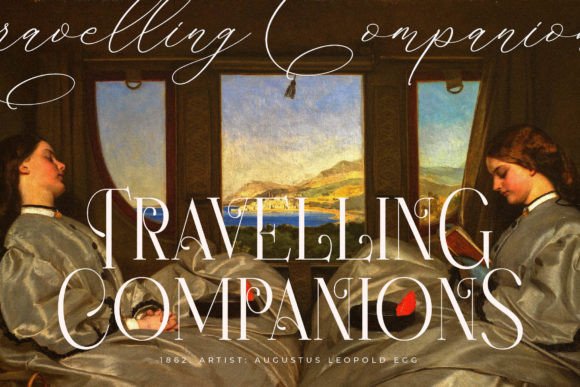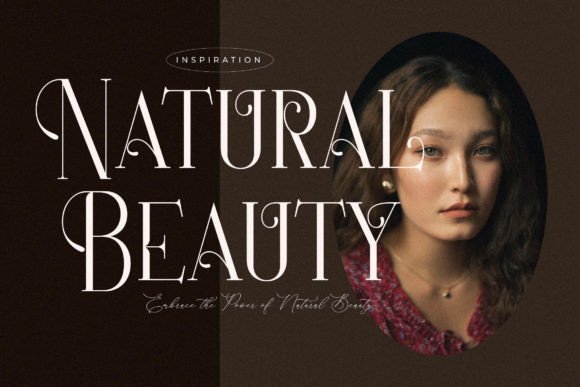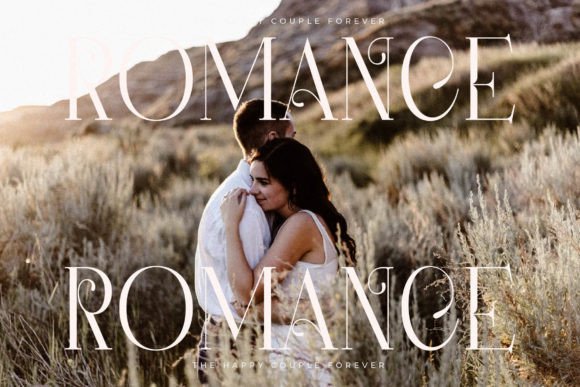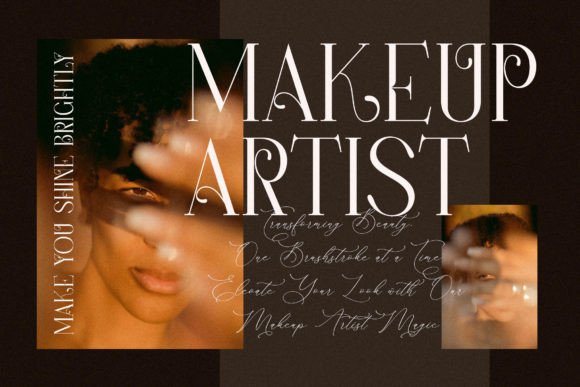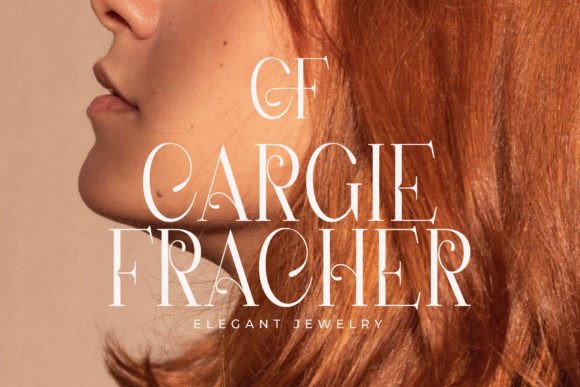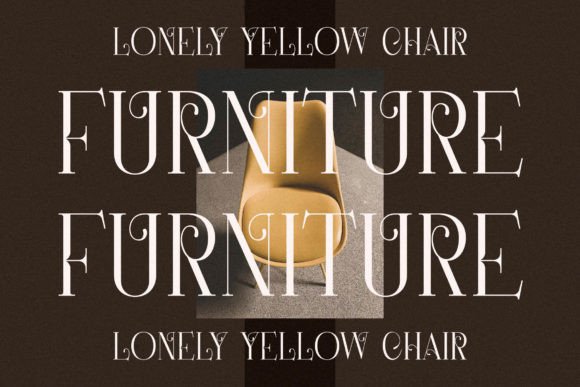
Hanchern Font: Elevate Your Designs with Elegance and Sophistication
In the world of typography, a font can make or break a design. With the right typeface, you can convey a message, evoke emotions, and create a lasting impression. Hanchern Font is a modern and classic serif typeface that has been making waves in the design community with its unique look and versatility. In this article, we’ll dive into the world of Hanchern Font and explore its features, uses, and benefits for designers and crafters.
A Modern Classic: The Unique Look of Hanchern Font
Hanchern Font is a masterful blend of modern and classic elements, resulting in a typeface that is both elegant and sophisticated. Its serif design gives it a timeless feel, while its clean lines and subtle curves bring a touch of modernity. The font’s unique look is perfect for designers who want to add a touch of luxury and refinement to their work.
Perfect for Elegant and Luxurious Designs
Hanchern Font is ideal for designs that require an air of elegance and sophistication. Its luxurious feel makes it perfect for:
- Elegant logos: Create a lasting impression with a logo that exudes luxury and refinement.
- Book or movie title design: Add a touch of sophistication to your title designs with Hanchern Font.
- Fashion brands: Elevate your fashion brand with a font that screams luxury and style.
- Magazines: Give your magazine a sophisticated look with Hanchern Font.
- Clothes: Use Hanchern Font to create stylish and elegant clothing labels or advertisements.
Beyond the Basics: Exploring the Versatility of Hanchern Font
Hanchern Font is more than just a pretty face. Its versatility makes it suitable for a wide range of design applications, including:
- Lettering: Create beautiful lettering pieces with Hanchern Font’s elegant and flowing curves.
- Quotes: Add a touch of sophistication to your quote designs with Hanchern Font.
- Advertising: Use Hanchern Font to create eye-catching advertisements that exude luxury and refinement.
So, what makes Hanchern Font a must-have for designers and crafters? Here are just a few benefits:
- Unique look: Hanchern Font’s unique design sets it apart from other serif typefaces.
- Versatility: Use Hanchern Font for a wide range of design applications, from elegant logos to lettering and quotes.
- Elegance and sophistication: Add a touch of luxury and refinement to your designs with Hanchern Font.
- Easy to read: Despite its elegant design, Hanchern Font remains easy to read, making it perfect for body text and headlines.
In conclusion, Hanchern Font is a modern and classic serif typeface that is perfect for designers and crafters who want to add a touch of elegance and sophistication to their work. Its unique look, versatility, and benefits make it a must-have for a wide range of design applications. Whether you’re creating an elegant logo, book or movie title design, or fashion brand, Hanchern Font is the perfect choice.